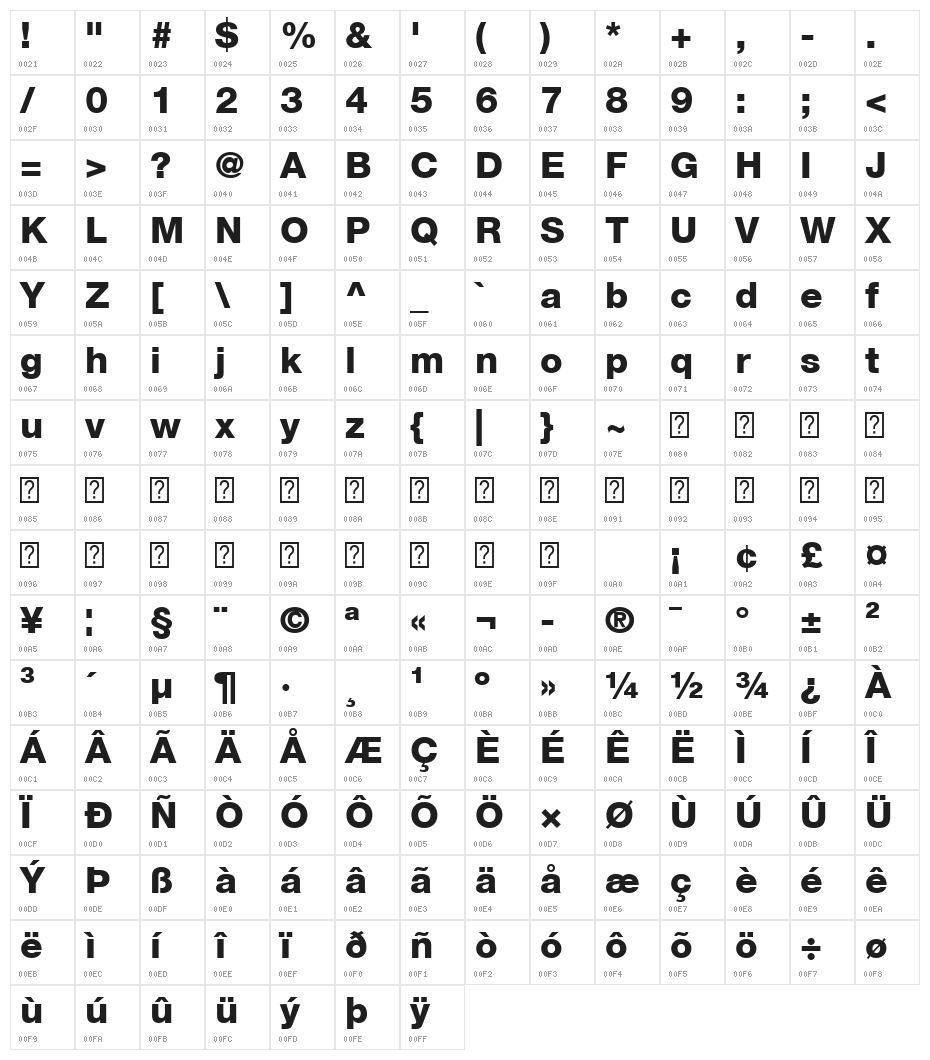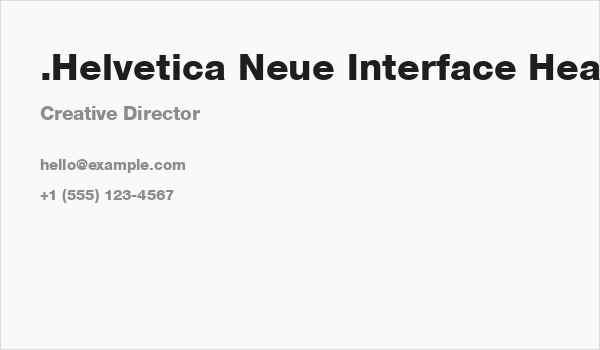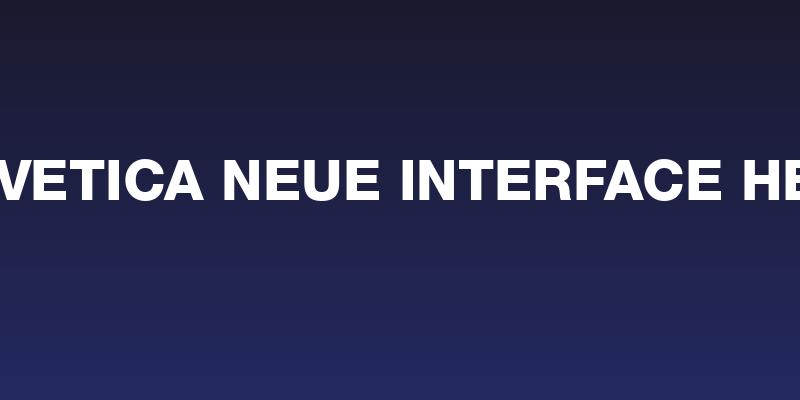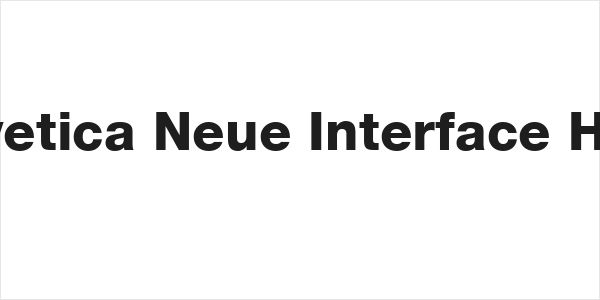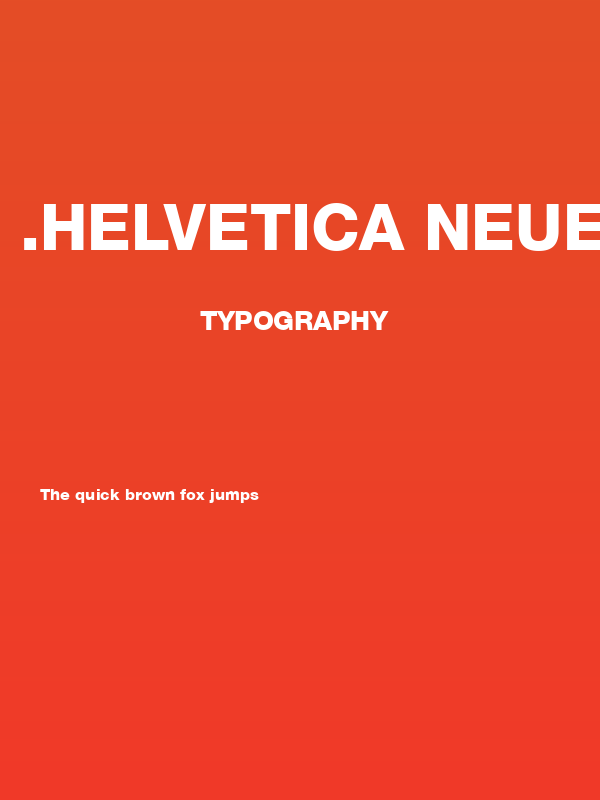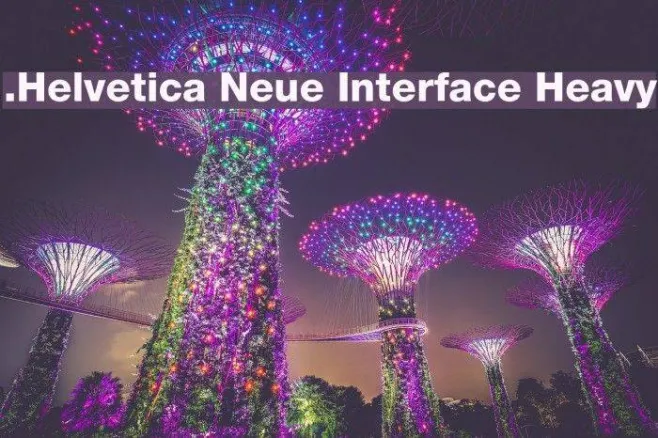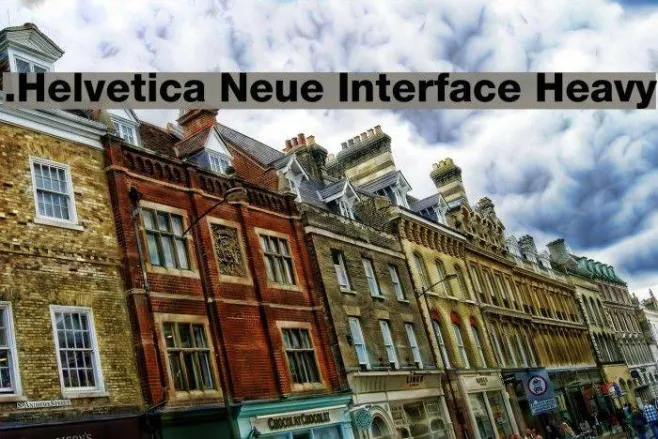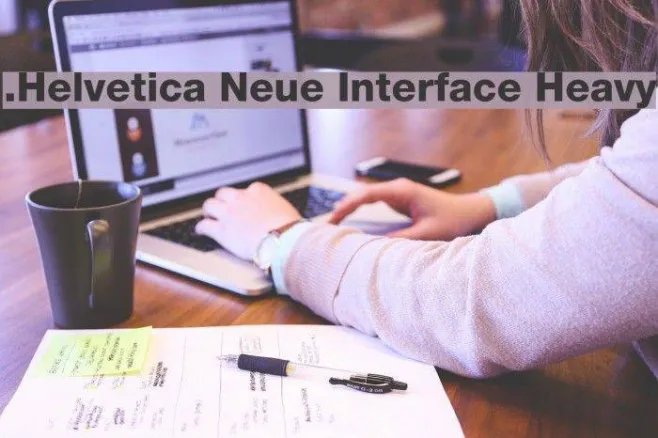
.Helvetica Neue Interface Heavy Font
.Helvetica Neue Interface Heavy Description
This font features a bold and modern sans-serif style, characterized by clean lines and a strong presence. The uppercase and lowercase letters are well-proportioned, with a consistent stroke width that gives the font a uniform appearance. The numerals are clear and easily distinguishable, making them suitable for various applications. The special characters are designed to complement the overall aesthetic, maintaining the font's bold and impactful look. This font is versatile and can be used in a wide range of design projects, from digital interfaces to print media.
| Use Case | Headlines, Logos, Digital Interfaces |
| Proposed Projects | Ideal for digital interfaces, branding, advertising, and print media. |